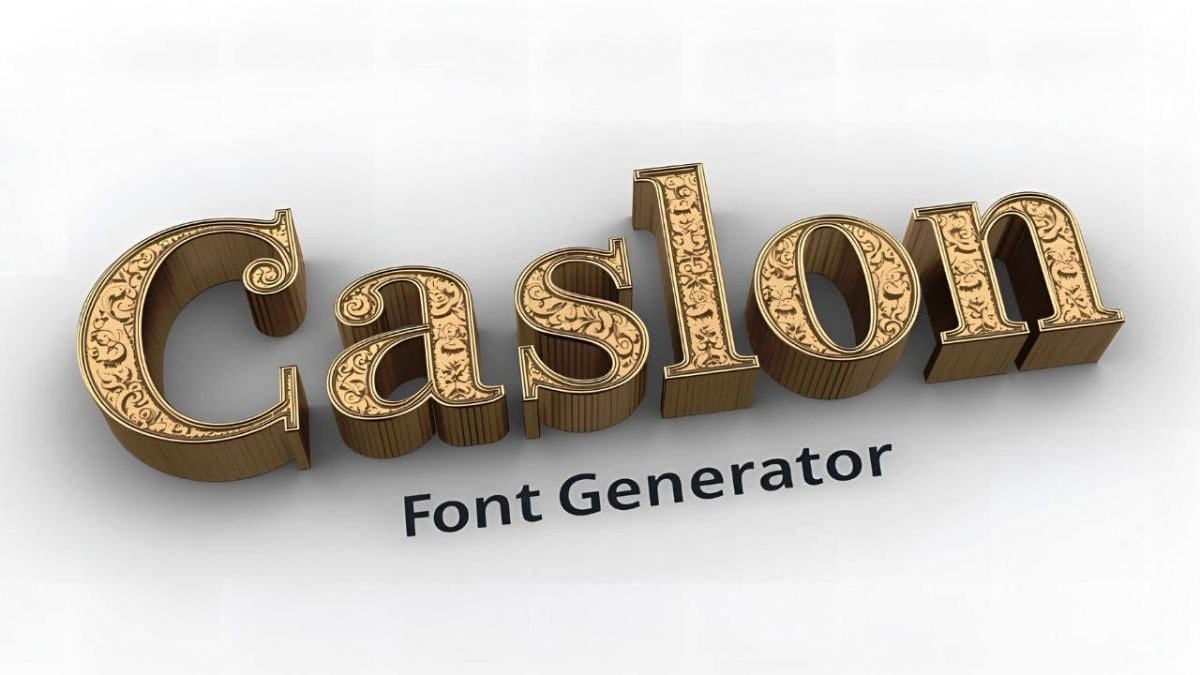
Create elegant, classic typography with Caslon, the timeless serif typeface perfect for books, publishing, and formal design.
What is Caslon Font?
Caslon is one of the most influential and widely used serif typefaces in history, created by William Caslon in 1722. This legendary typeface revolutionized printing and typography, becoming the standard for books, newspapers, and formal documents for over 200 years. Its elegant proportions, crisp letterforms, and exceptional readability have made it a cornerstone of typography.
📚 Literary Excellence
Perfect for books, manuscripts, and academic works. Caslon’s legendary readability makes it the gold standard for long-form content and scholarly publishing.
🎯 Historical Legacy
Used for centuries by publishers, newspapers, and designers worldwide. The most respected serif typeface in typographic history.